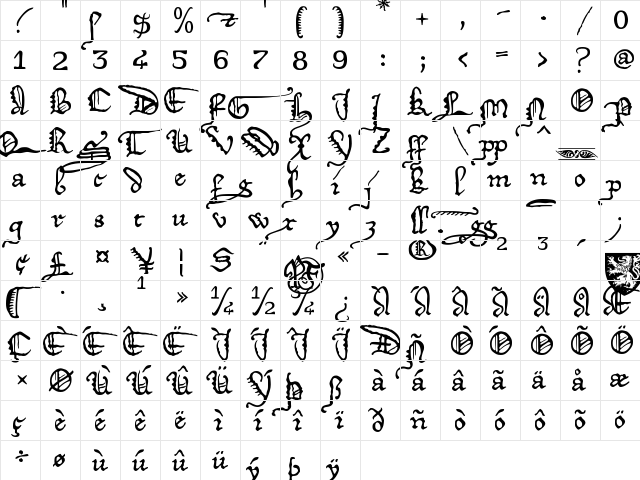
DeiGratia Regular
| Designer | Pia Frauss |
Design Context for DeiGratia Typeface
DeiGratia is a composed and adaptable typeface that performs quietly and consistently across a wide range of design contexts.